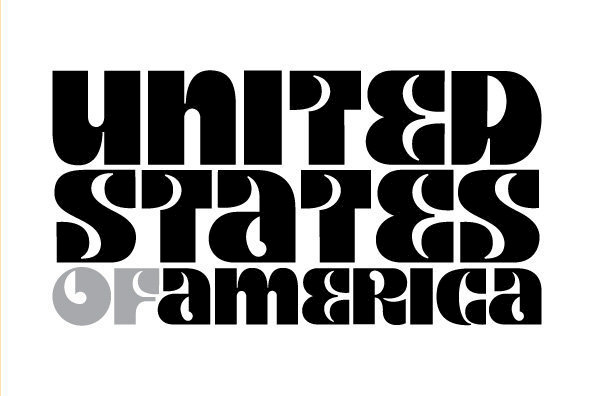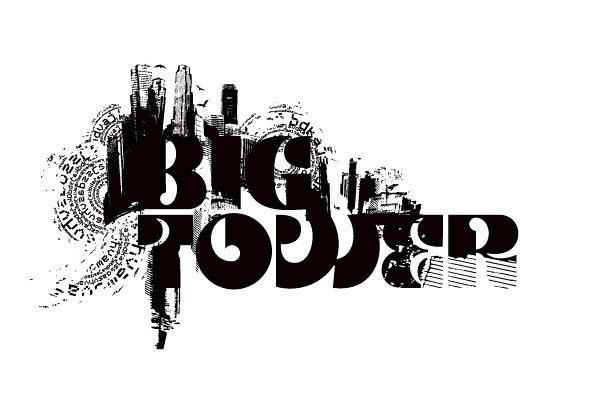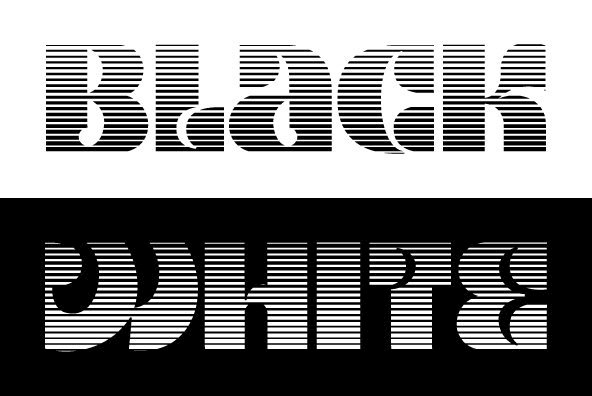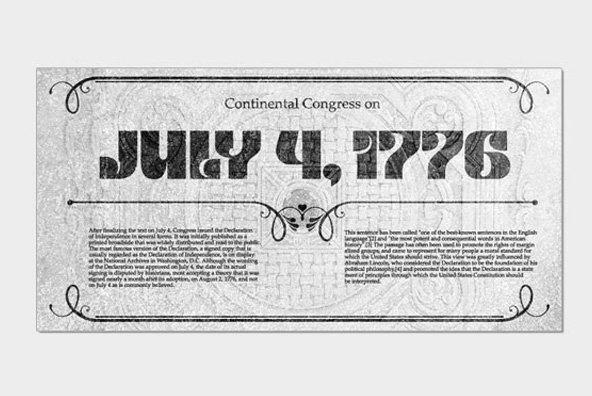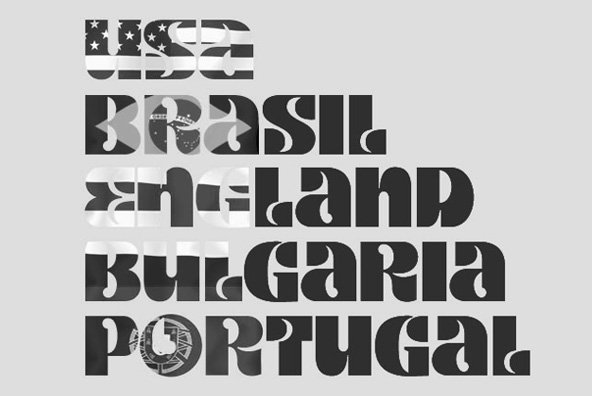
Kare is a custom font which bring us retro feeling in the spirit of some classic fonts from the 1960s and 1970s. Applicable for any type of graphic design - web, print, motion graphics etc and perfect for t-shirts and logos.